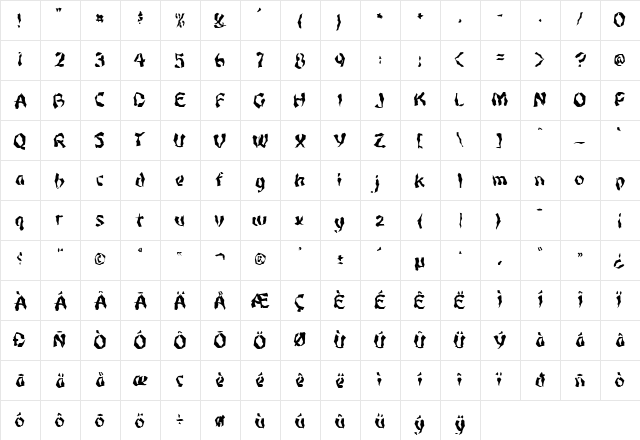
FZ WACKY 46 Normal
Design Context for FZ WACKY 46 Typeface
FZ WACKY 46 is a composed and adaptable typeface that performs quietly and consistently across a wide range of design contexts.